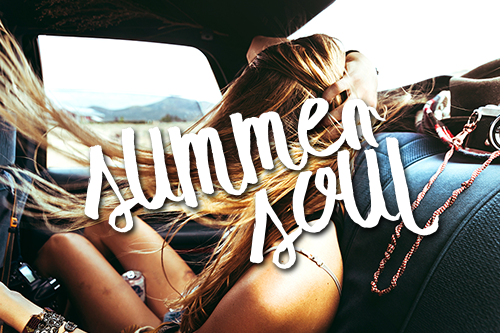
Preview and download Summer Soul Script Font. Created by Leonard Posavec - LeoSupply.co in Script Brush styles with Free for personal use license.
This is Handrawn Brush Font, Calligraphy style, Suitable for design, element design, wedding, event, t-shirt, logo, badges, sticker, and awesome work about summer. If you want to use it in commercial purpose please contact me: http://www.leosupply.co Please report if you find any bugs or have some problems with this font. This font is only for PERSONAL use. |